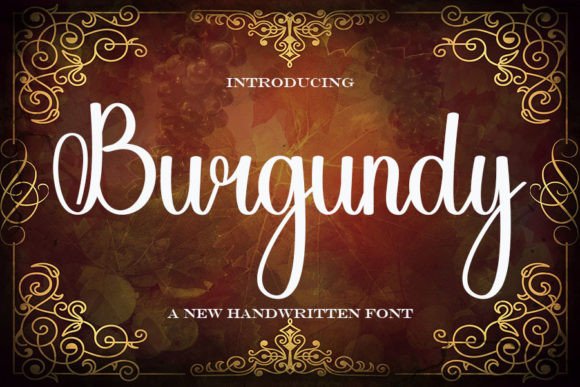
The Elegance of Burgundy Font: A Designer’s Delight
I still remember the project that made me fall in love with the Burgundy font. I was working on a wedding invitation design, and my client was adamant that they wanted something elegant, yet modern. I had spent hours scouring font libraries, but nothing seemed quite right. That was when I stumbled upon Burgundy – a beautiful, handwritten font that exuded sophistication and charm. It was love at first sight! 💕
An Honest Review of Burgundy Font
- ✨ Elegant and refined, perfect for high-end designs
- 💫 Unique, yet timeless style that never goes out of fashion
- 🎨 Versatile and adaptable to various design contexts
While Burgundy font is an excellent choice for many designs, there are a few things to keep in mind: ⚠️ It may not be the best fit for very casual or playful projects, as it does lean towards the more formal side. 🤔 Additionally, some users have reported issues with kerning on certain letter combinations.
The Backstory of Burgundy Font
Burgundy font was designed with the intention of capturing the essence of classic elegance. The designer aimed to create a font that would evoke the feeling of fine wine and luxurious living. With its intricate details and refined lines, Burgundy font is the perfect embodiment of sophistication and poise.
Q: What type of projects is Burgundy font best suited for?
A: Burgundy font is ideal for high-end designs, such as luxury branding, wedding invitations, and formal events.
Q: Is Burgundy font available in different weights or styles?
A: Currently, Burgundy font is available in a single weight. However, some font variations may offer additional styles or weights.